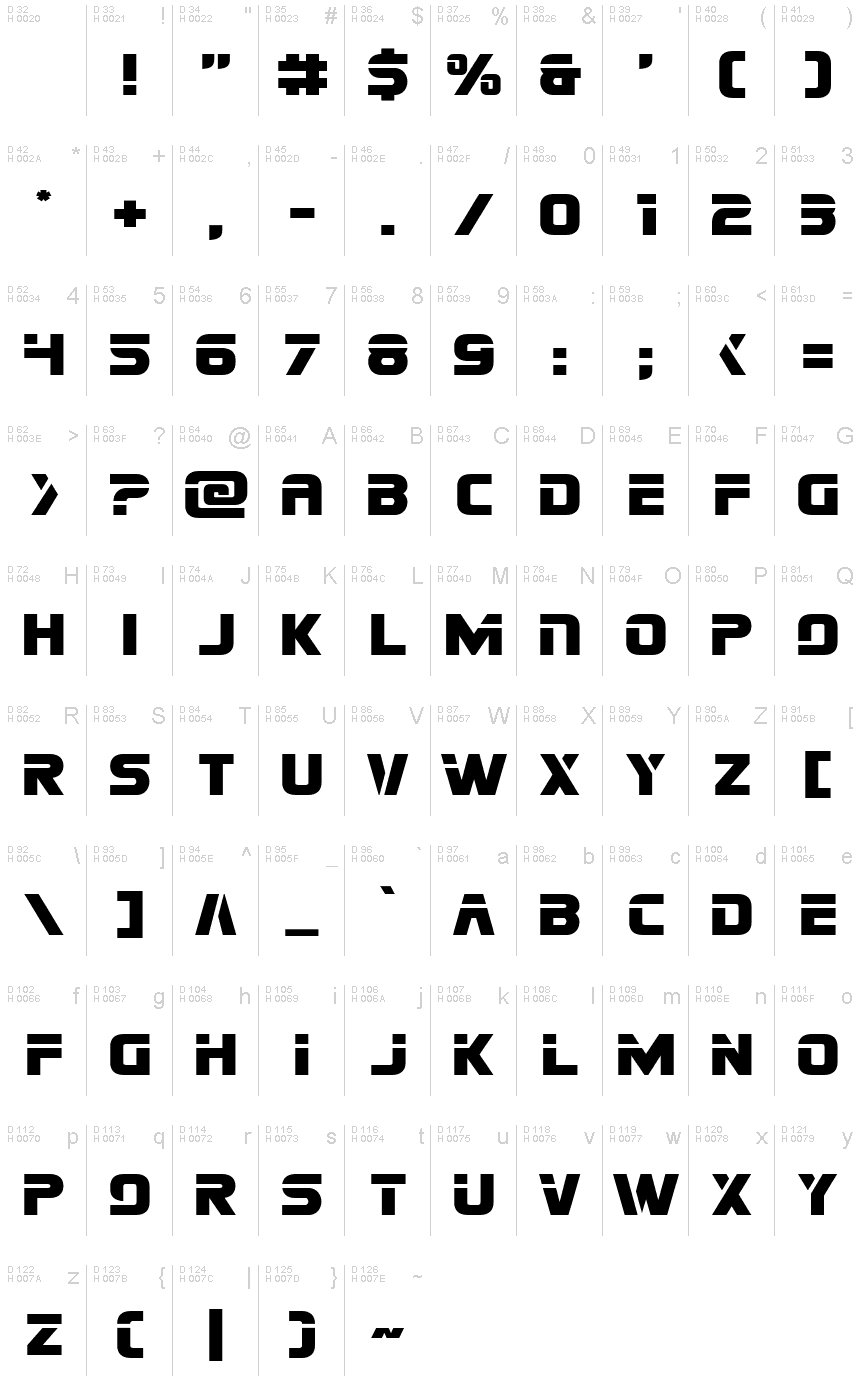
Mission: Danger Expanded
Experience the thrill of the future with Mission: Danger Expanded, a display font that packs an extra-bold punch. Designed by Iconian Fonts, this futuristic typeface is perfect for projects that need to make a bold statement. The expanded width gives it extra impact, making it ideal for anything from sci-fi movie posters to tech company branding. With its sleek lines and sharp edges, Mission: Danger Expanded is sure to capture attention and convey a sense of adventure. Whether you're designing a video game or creating a cutting-edge website, this font will help you take your project to the next level.